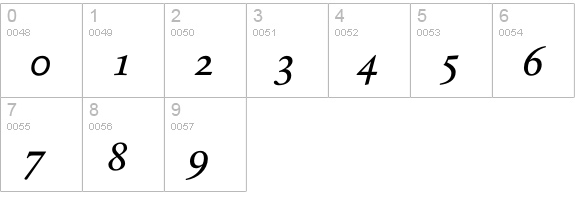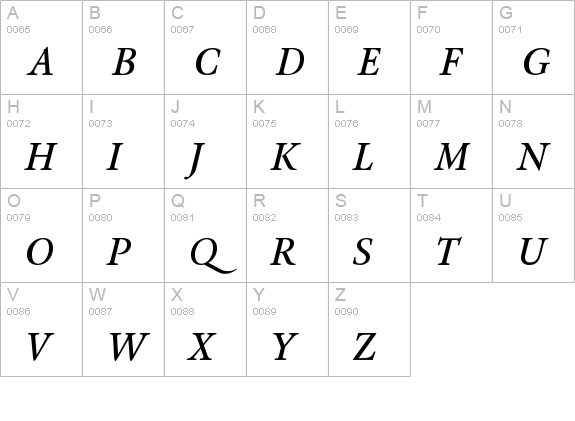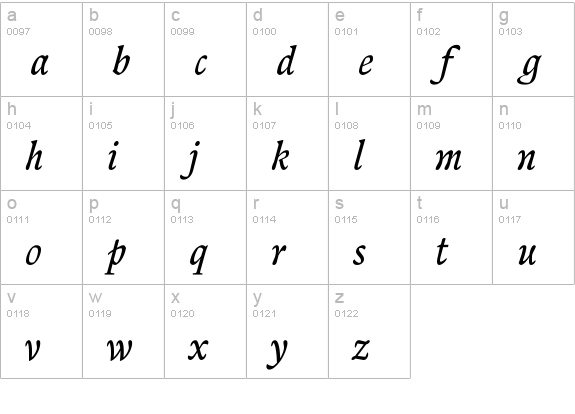
RenardNo1-Italic is a distinctive, italic variant in the RenardNo1 typeface family \xE2\x80\x94 well suited to design and typography projects.
RenardNo1-Italic is a stunning and elegant font that exudes sophistication and charm. Its slanted and flowing letterforms add a touch of grace and refinement to any design project. With its delicate curves and expressive strokes, this typeface captures attention and creates a sense of beauty. RenardNo1-Italic is perfect for any project that calls for a touch of elegance, whether it be invitations, branding, logos, or editorial designs. Its versatility allows it to adapt to various contexts, making it a versatile choice for designers and creatives. One of the most remarkable aspects of RenardNo1-Italic is that it is available for free. This means that anyone can access this exquisite font without any cost. Simply head over to FontsMarket.com, where you can freely download this font and explore the endless possibilities it offers. Don't miss out on the opportunity to enhance your designs with RenardNo1-Italic. Its timeless beauty and freely available nature make it a valuable asset for both professionals and enthusiasts alike. Download it today and let your creativity soar to new heights.